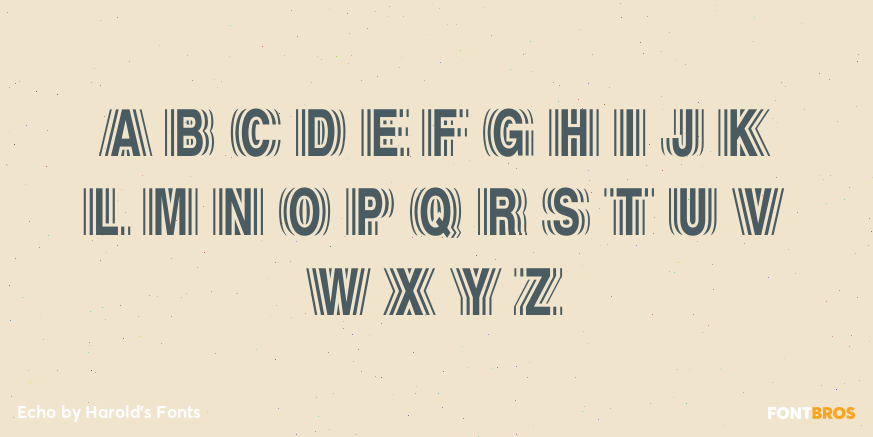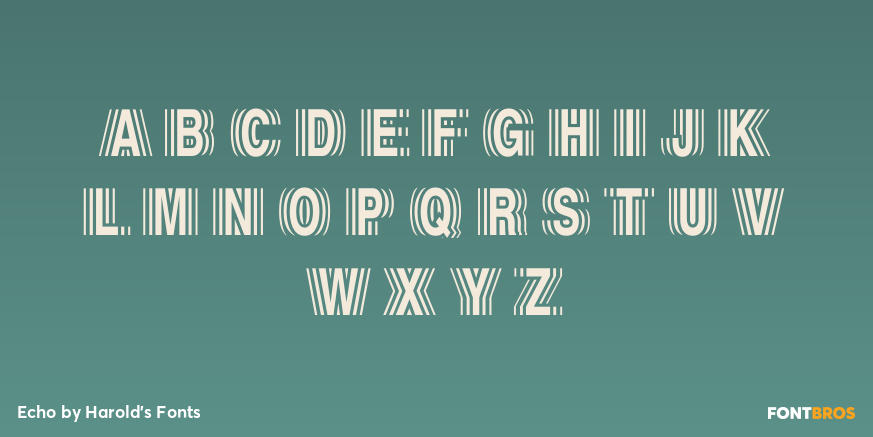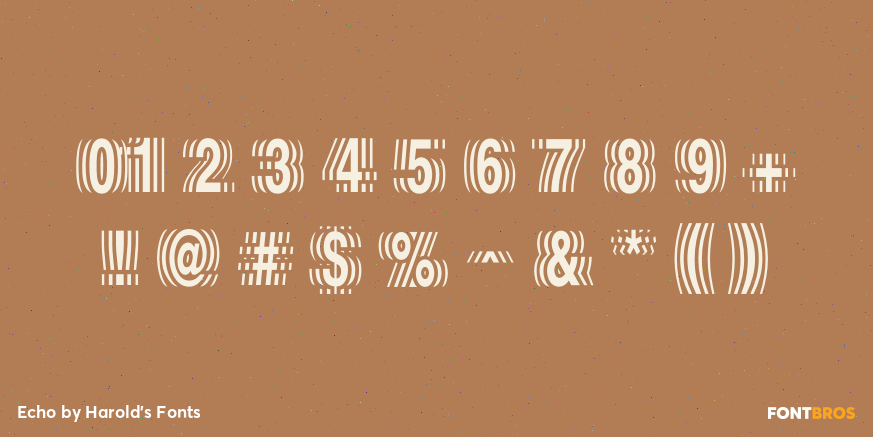
Echo
Font Family by Harold's Fonts
ECHO was inspired by a psychedelic-era poster in which the letters were given a similar vibrating feel. Think Lou Reed Transformer.